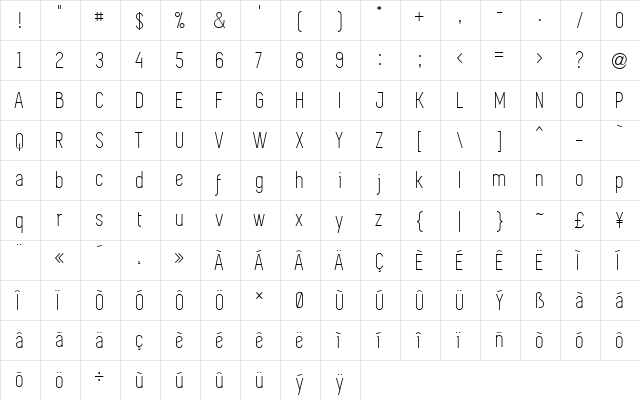
Simplifica Simplifica
| Foundry | KAIWA (Kamil Iwaszczyszyn) |
| Designer | KAIWA |
Design Context for Simplifica Typeface
Simplifica is a composed and adaptable typeface that performs quietly and consistently across a wide range of design contexts.